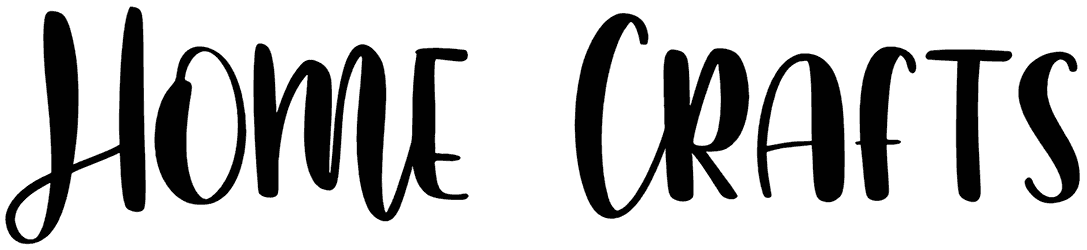
Home Crafts Font
If you are interested in making things by hand, Home Crafts can create a similar atmosphere in your writing. This handwritten font has a playful appearance and a very special style of connecting curves that keeps its readability at a good level.
The normal and carefree appearance of this cute font is designed for confident text reproduction and works well in the field of posters, books, and more, so that the lack of small letters is not felt.